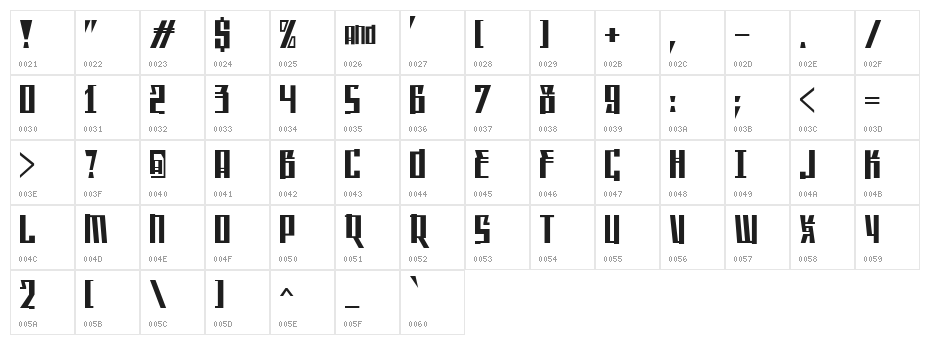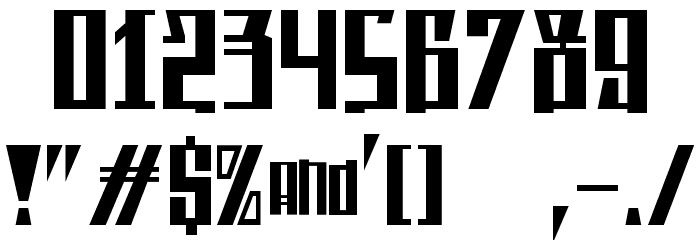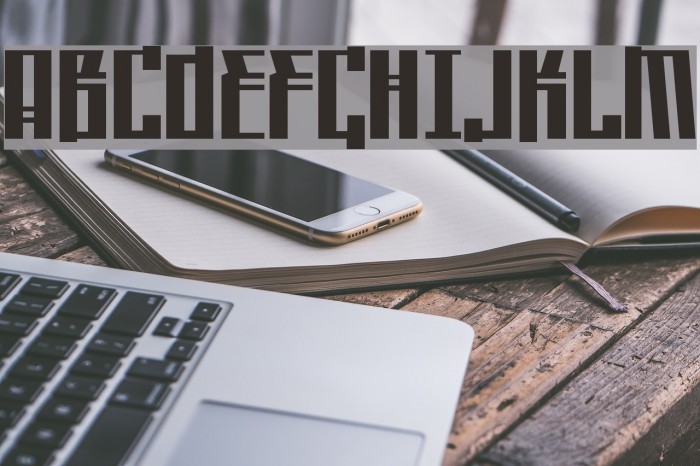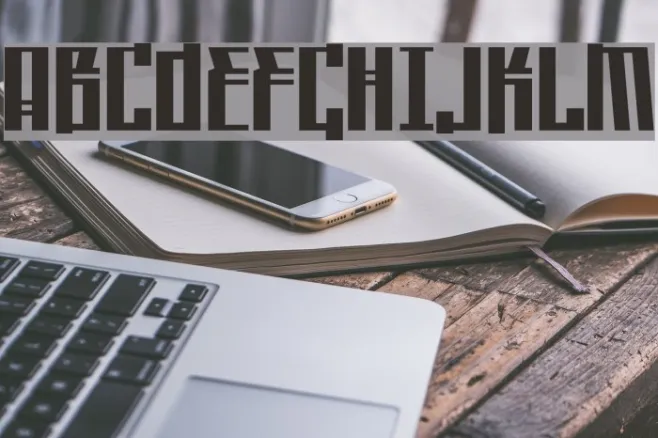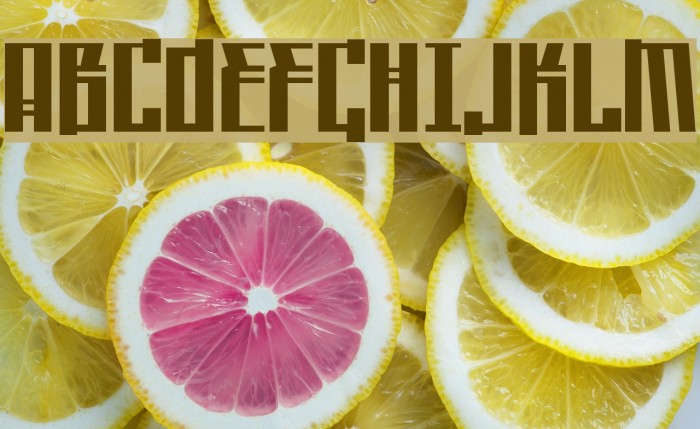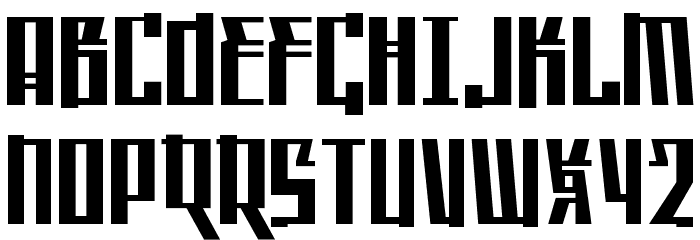
Saffron_Cyr Font
Saffron_Cyr Description
This font features a bold and striking design with sharp, angular lines and a geometric structure. The characters are blocky and have a futuristic, almost digital appearance, making them stand out prominently. The uppercase and lowercase letters maintain a consistent style, with the uppercase being particularly impactful. Numbers and special characters follow the same bold and angular design, ensuring uniformity across the font. The overall aesthetic is modern and edgy, suitable for projects that require a strong visual impact.